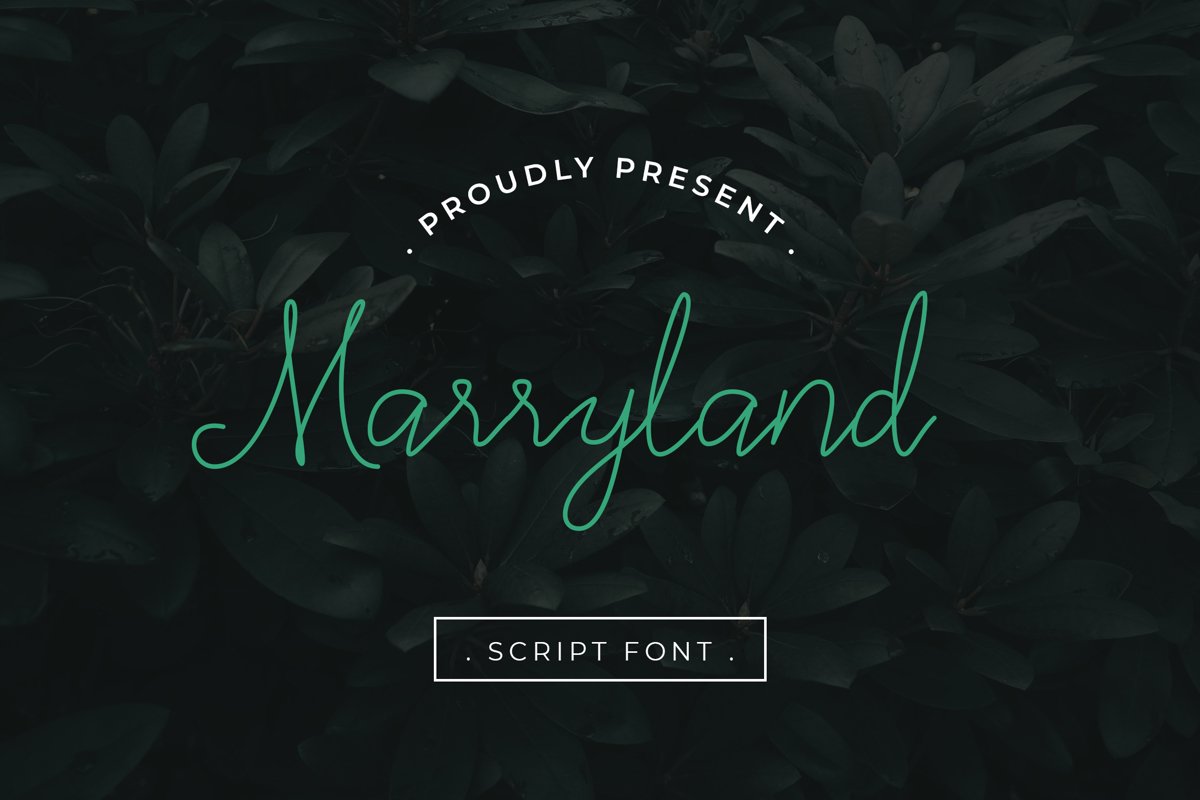
Marryland Handwritten Script Monoline
Marryland
Marryland is perfect handwritten script for branding projects, logo, wedding designs, social media posts, advertisements, product packaging, product designs, label, photography, watermark, invitation, stationery and any projects that need handwriting taste.
This font has a really nice flow so you use it in a large text if you want to give them a touch of personality. It can be used on social media content, for branding or packaging.